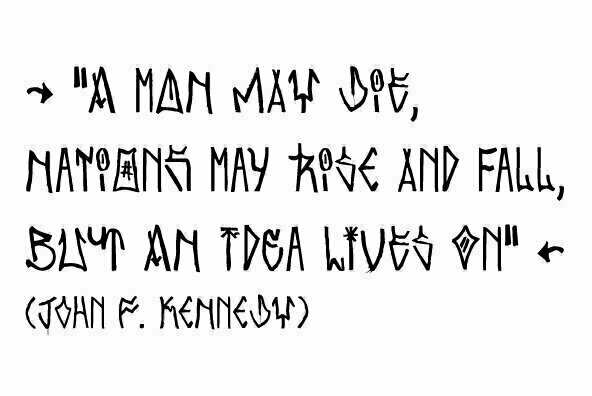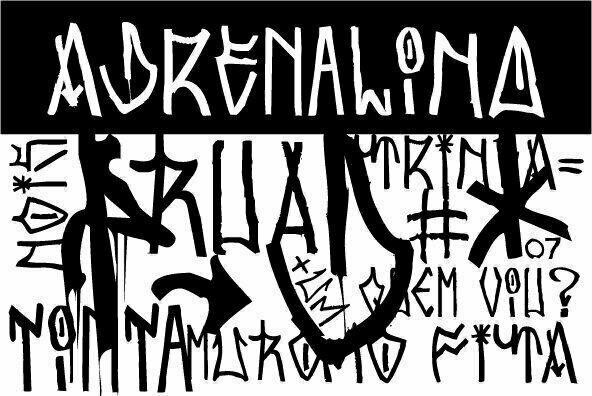
Adrenalina
Foundry: BRtype
Adrenalina was created in 2003-2007. The character set was drawn through digital manipulation from photos of pichacoes taken in Sao Paulo - Brazil. Pixacao is a form of tagging that comes from Brazilian graffiti writers. This style of pichacao (or pixacao) is also known as tag reto (straight tag).